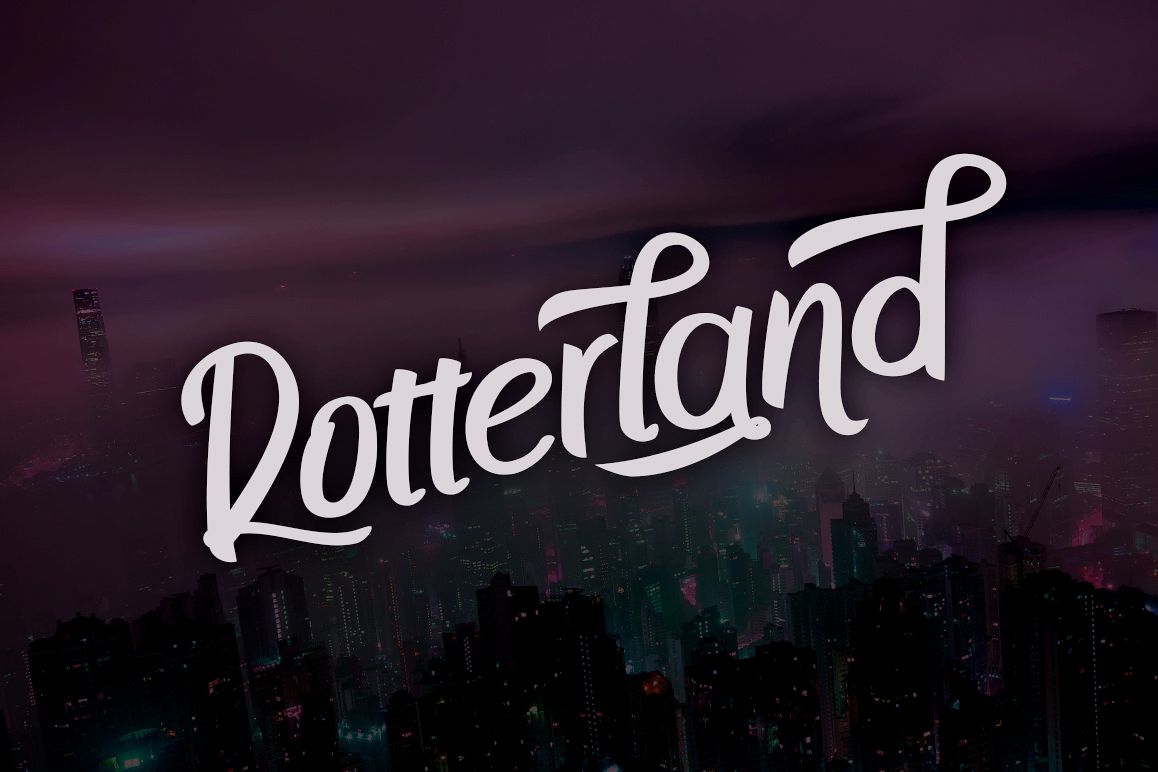
Rotterland
Rotterland is a stylish brush lettered font, hand-made paint brush font with urban character style.
It comes with over 300+ glyphs including capitals, lowercase, numerals, punctuation, currency, accents and stylistic alternates. With Rotterland you can manipulate letters with a full range of possibilities but the best use of this font is for display or logo.